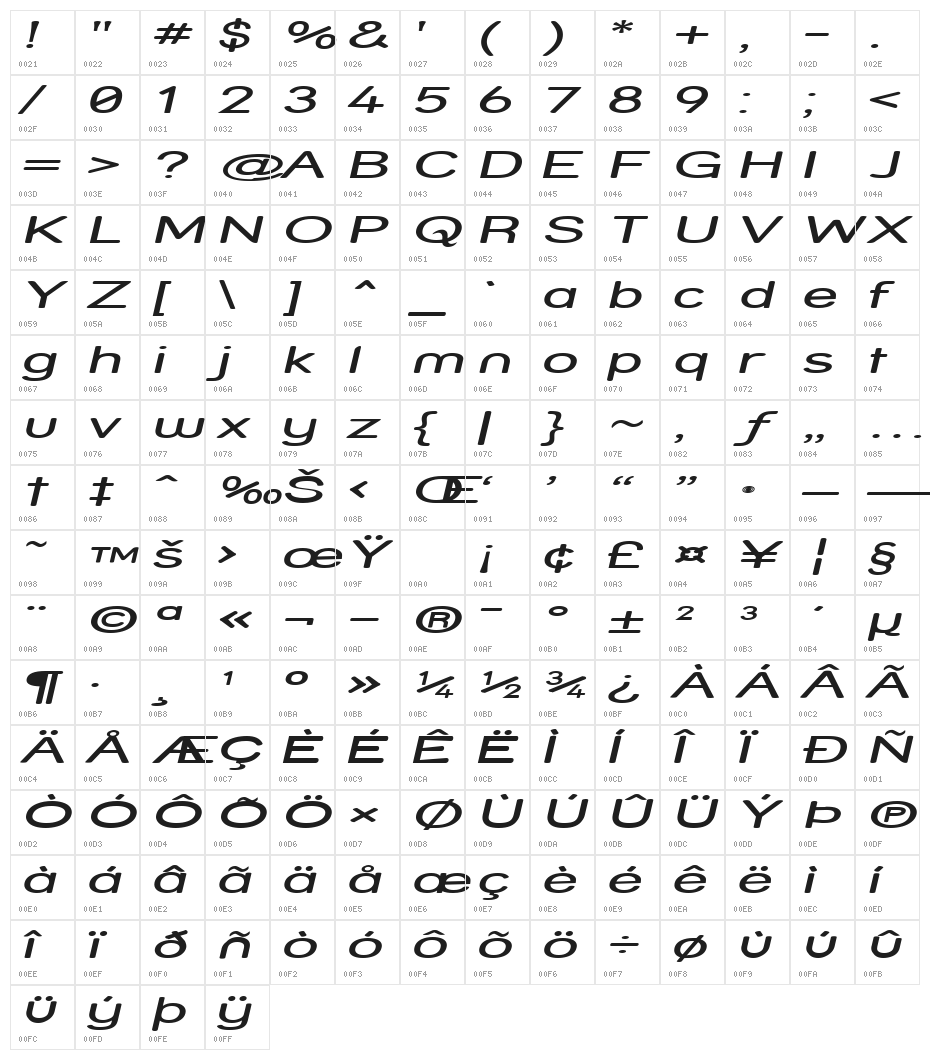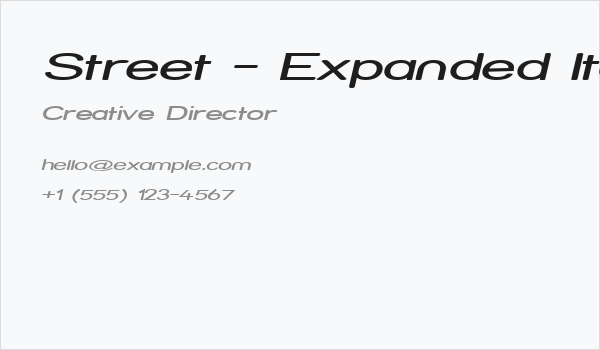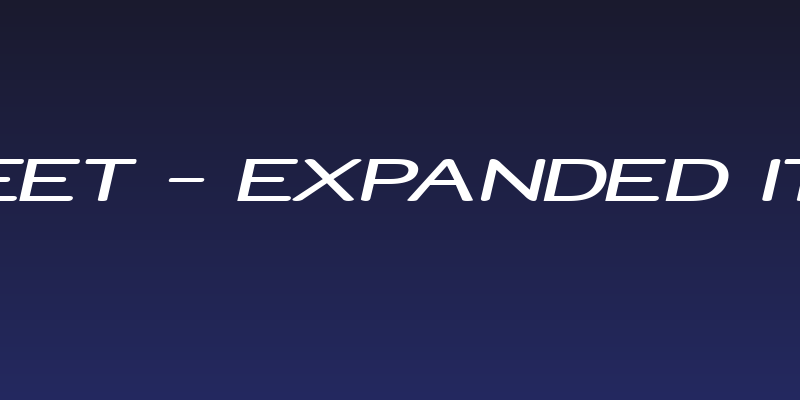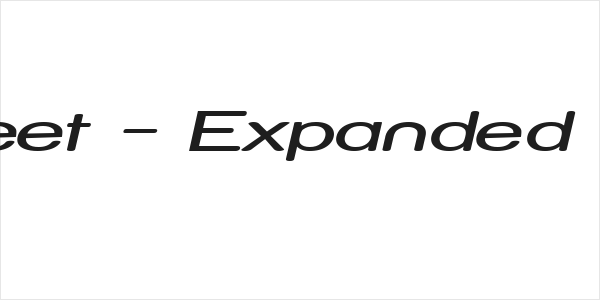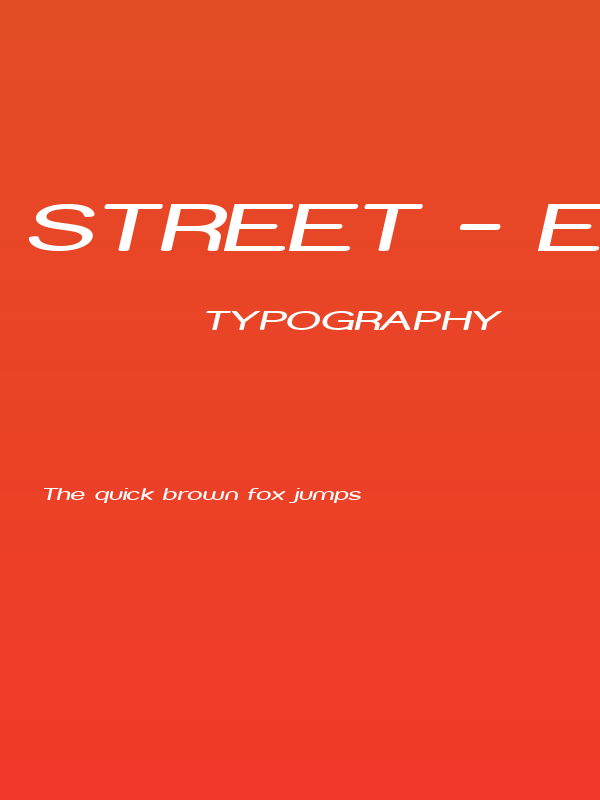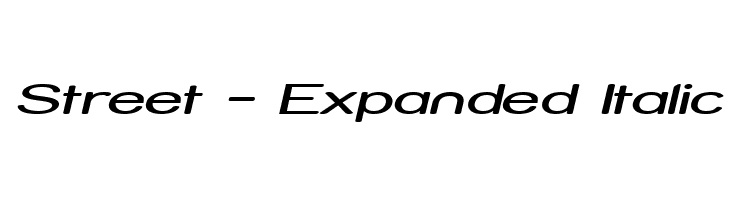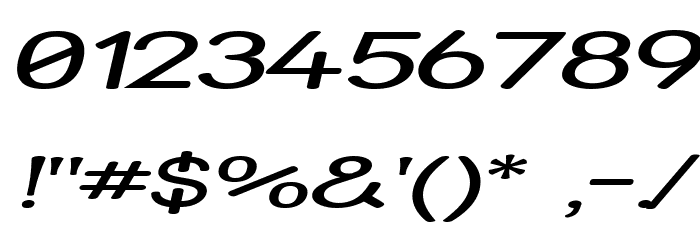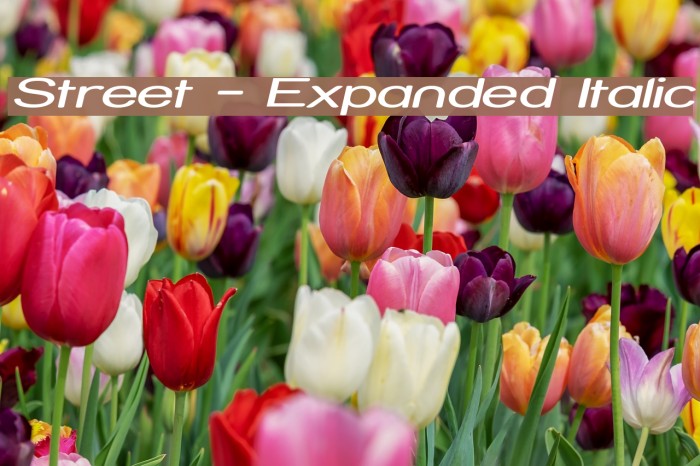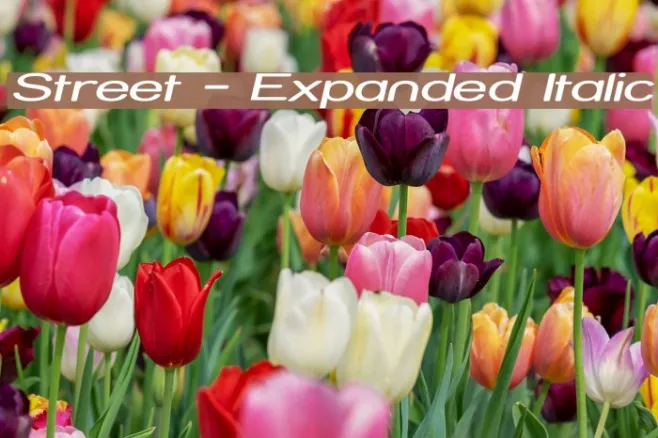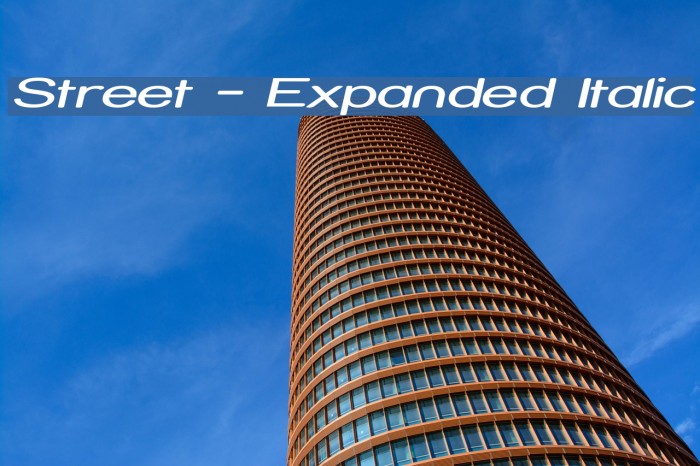
Street - Expanded Italic Font
Street - Expanded Italic Description
This font features an expanded and italicized style, offering a modern and dynamic appearance. The characters are slightly slanted, adding a sense of motion and fluidity. The expanded width gives each letter ample space, enhancing readability while maintaining a sleek and contemporary look. The font's smooth curves and clean lines contribute to its modern aesthetic, making it suitable for a variety of design applications. The numerals and special characters are consistent with the overall style, ensuring uniformity across different uses. This font is ideal for projects that require a bold statement with a touch of elegance.
| Proposed Projects | Ideal for branding, advertising, headlines, and modern web design. |